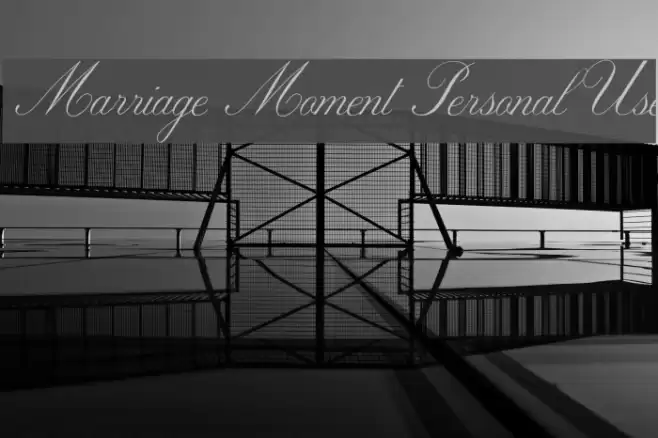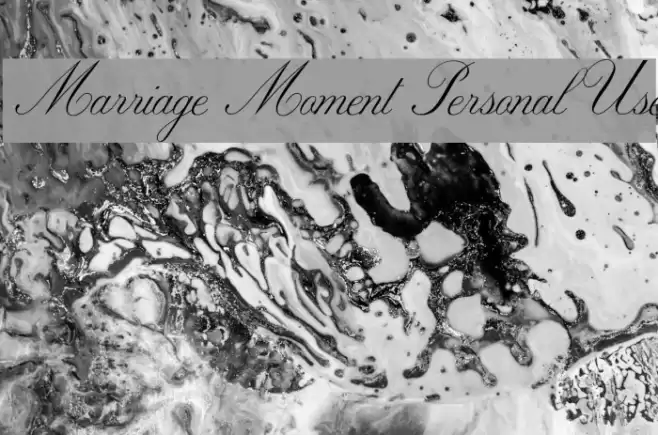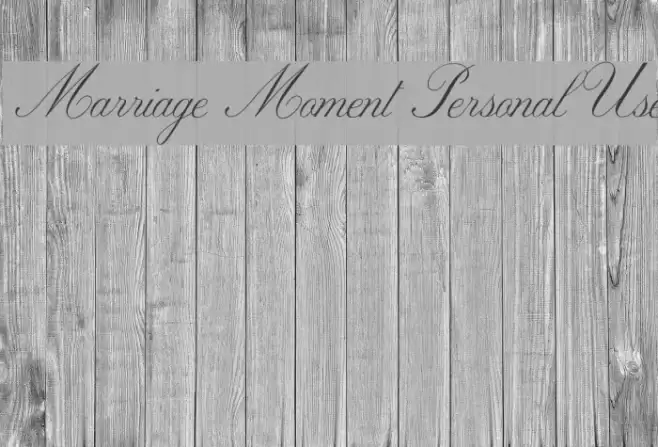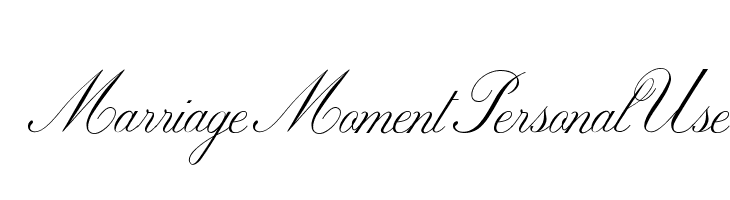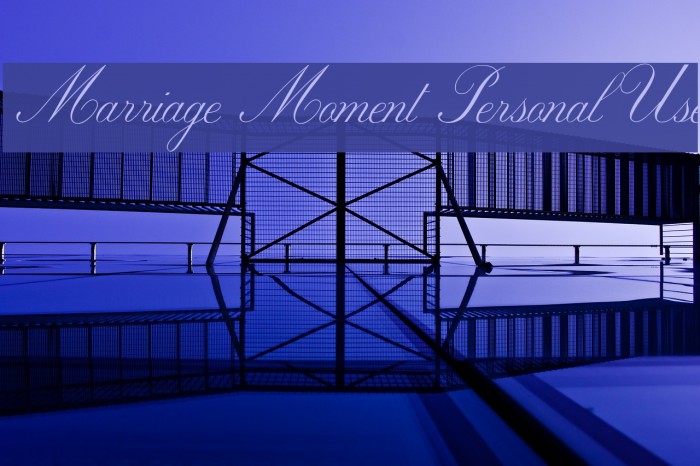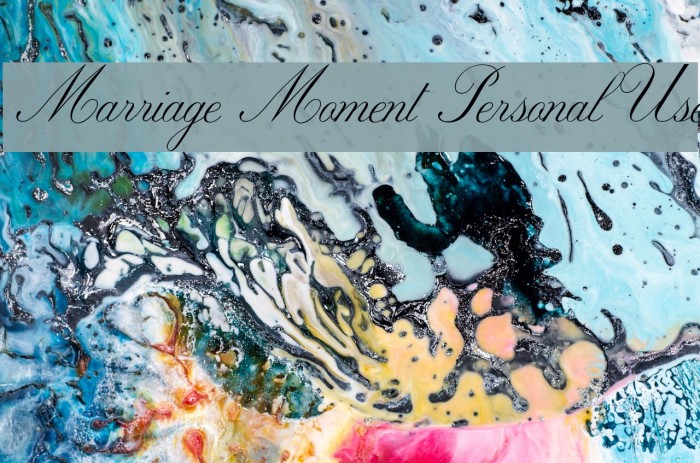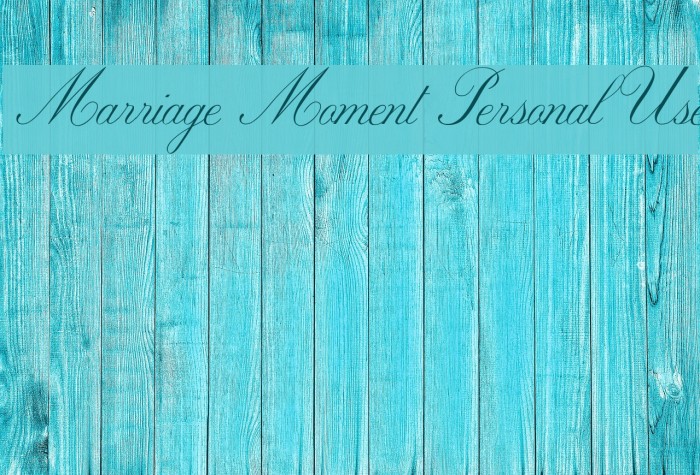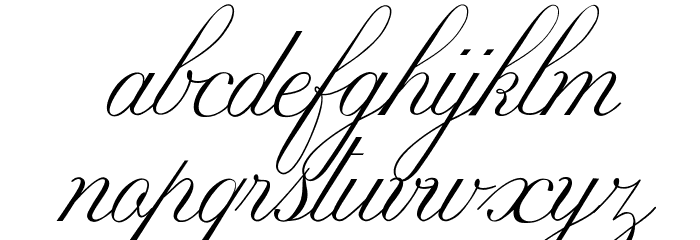
Marriage Moment Personal Use
This elegant script font features flowing, cursive letters with a classic and sophisticated style. The uppercase letters are beautifully looped and connected, giving a sense of continuity and grace. The lowercase letters maintain a consistent slant and are slightly more compact, yet they retain the same fluidity as the uppercase. The font has a delicate and refined appearance, making it suitable for formal occasions. The characters are well-spaced, allowing for readability while maintaining the decorative nature of the script. The overall design is reminiscent of traditional calligraphy, with a modern twist that adds a touch of elegance to any text.
An elegant script font with flowing, cursive letters and a classic style.
- Proposed Projects: Wedding invitations, elegant branding, personal stationery, romantic quotes, and formal event programs.
- Category: Script
- Overall Style: Classic
- Use Case: Headlines, Invitations, Logos